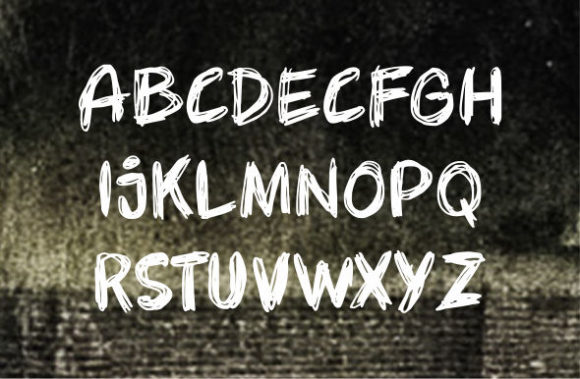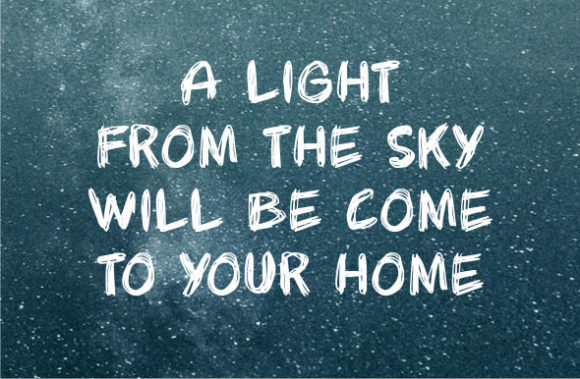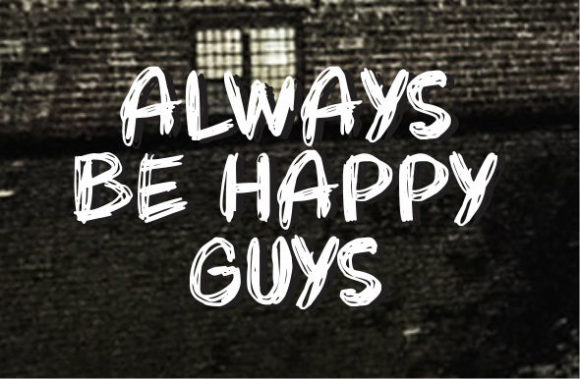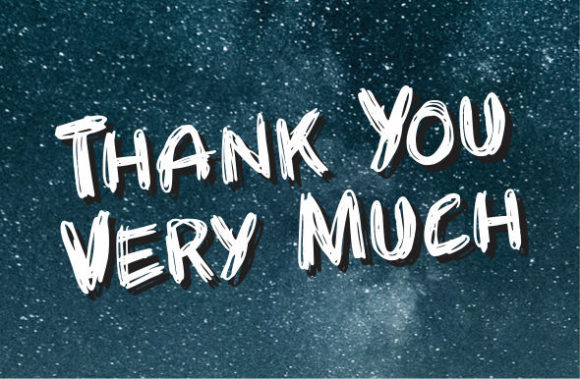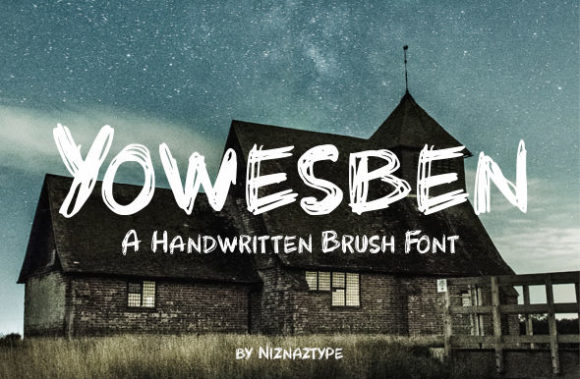
Yowesben Font
About Yowesben Font
Yowesben sounds like a wonderful and versatile handwritten font that can add a touch of uniqueness and simplicity to a variety of design projects. With its distinctive style, Yowesben font offers creative possibilities for various applications. Here are some ideas on how to use Yowesben font to bring your creative ideas to life:
1. Logo Design: Create a distinctive and memorable logo using Yowesben font to give your brand a unique identity.
2. Branding: Incorporate Yowesben font in your branding materials, such as business cards, letterheads, and promotional materials, for a modern and authentic look.
3. Social Media Graphics: Use Yowesben font in social media posts and graphics to add a touch of simplicity and creativity to your online presence.
4. Product Packaging: Apply Yowesben font to product labels and packaging to give your products a unique and handcrafted feel.
5. Handmade Crafts: Incorporate Yowesben font in various handmade craft projects, such as greeting cards, DIY gifts, and scrapbooking.
6. Blog Headers: Use Yowesben font in blog headers and titles to give your website a clean and contemporary appearance.
7. Quote Graphics: Design minimalist and inspirational quote graphics using Yowesben font to emphasize the message.
8. Minimalist Posters: Create eye-catching minimalist posters using Yowesben font to convey a clear and impactful message.
9. Website Design: Integrate Yowesben font into your website design to enhance its visual appeal and readability.
10. Print Materials: Use Yowesben font in brochures, flyers, and other print materials to add a touch of uniqueness to your content.
11. Book Covers: Incorporate Yowesben font in book covers, especially for genres that require a simple and modern design approach.
12. T-Shirt Designs: Create stylish and contemporary T-shirt designs using Yowesben font for a trendy and fashionable look.
13. Quote Prints: Design minimalist quote prints using Yowesben font for home decor or as gifts.
14. Digital Art: Create digital art and illustrations using Yowesben font to add a modern and artistic touch.
15. Packaging Stickers: Design custom packaging stickers using Yowesben font to add a personal and handmade feel to your products.
16. Event Invitations: Use Yowesben font to design invitations for special events, such as weddings, parties, and workshops.
17. Postcards: Create custom postcards using Yowesben font for a simple and charming correspondence.
18. Journaling: Apply Yowesben font in journaling to add a personal touch and creative flair to your entries.
19. Motivational Prints: Design motivational prints using Yowesben font to inspire and uplift others.
20. Digital Lettering: Use Yowesben font for digital lettering projects, such as digital journaling, calligraphy, and typography art.
In summary, Yowesben is a unique and simple handwritten font that can bring a touch of originality and creativity to a wide range of design projects. Its clean and distinctive style allows for endless creative possibilities, making it a great choice for expressing modernity, simplicity, and a sense of authenticity. Embrace the versatility of Yowesben font and let your creativity flourish as you use it to create designs that truly come alive!